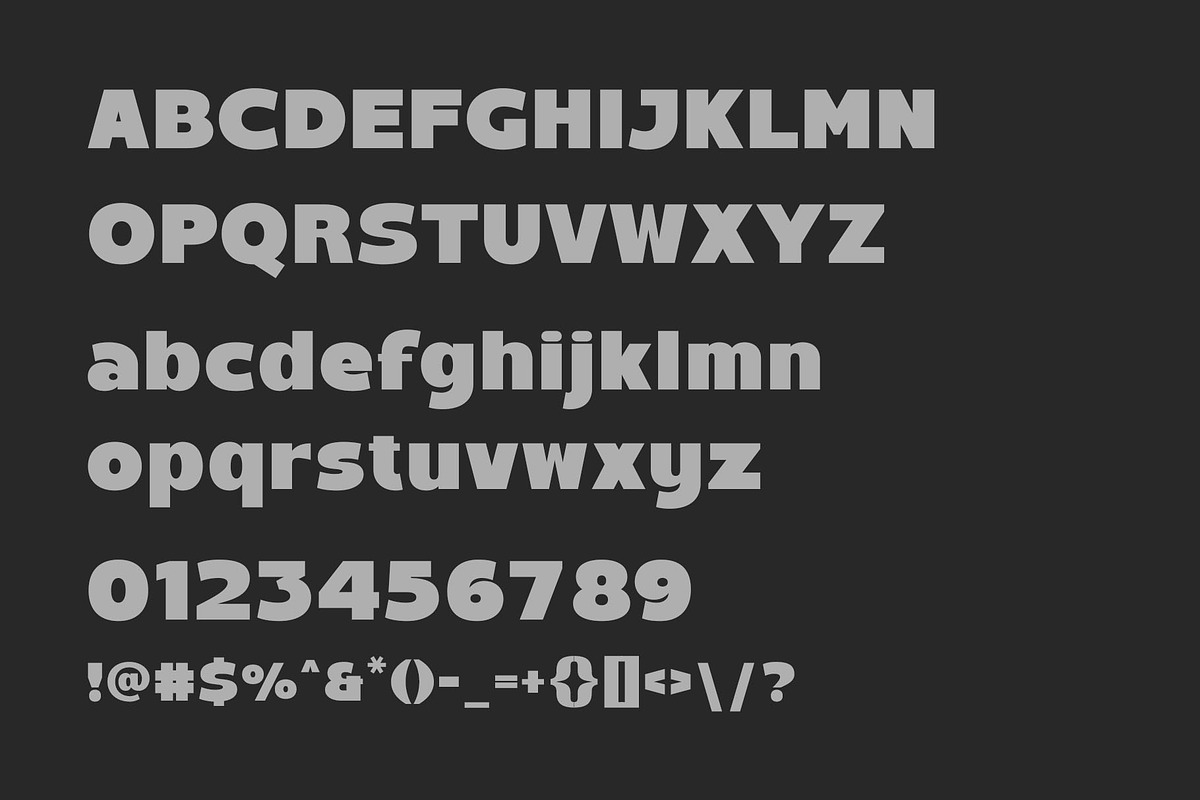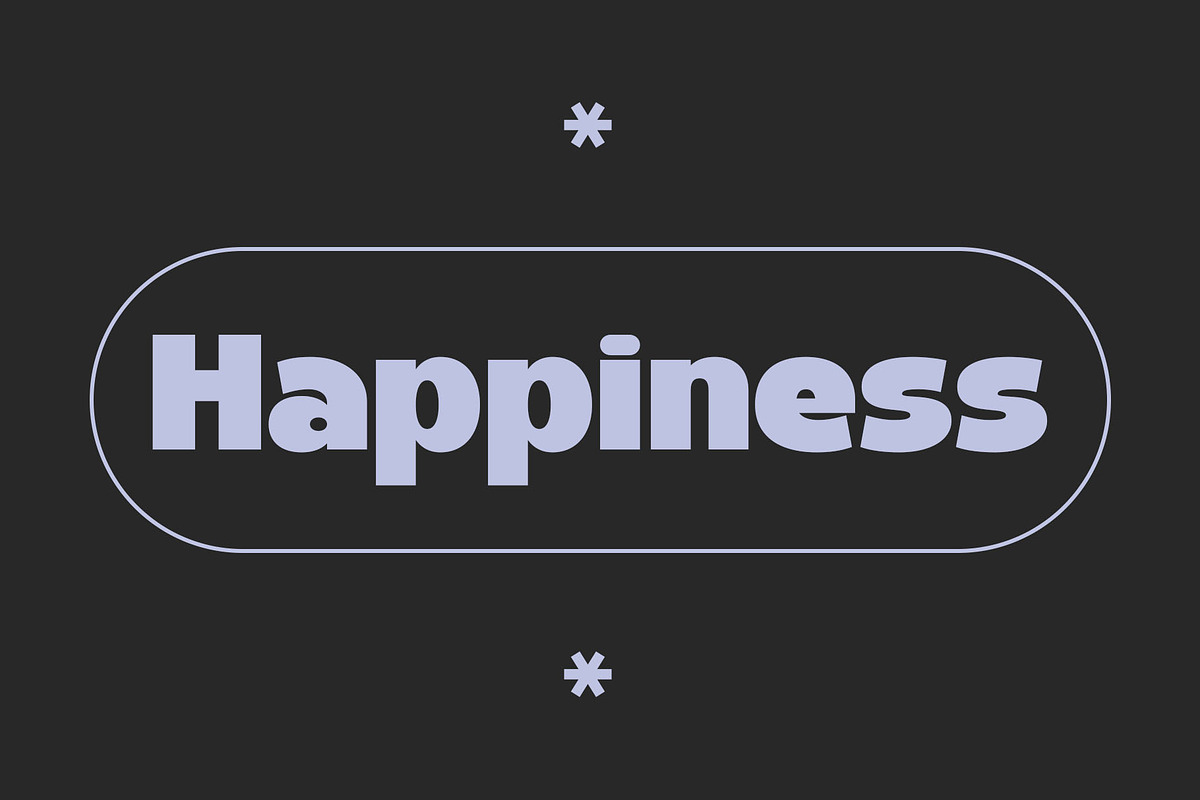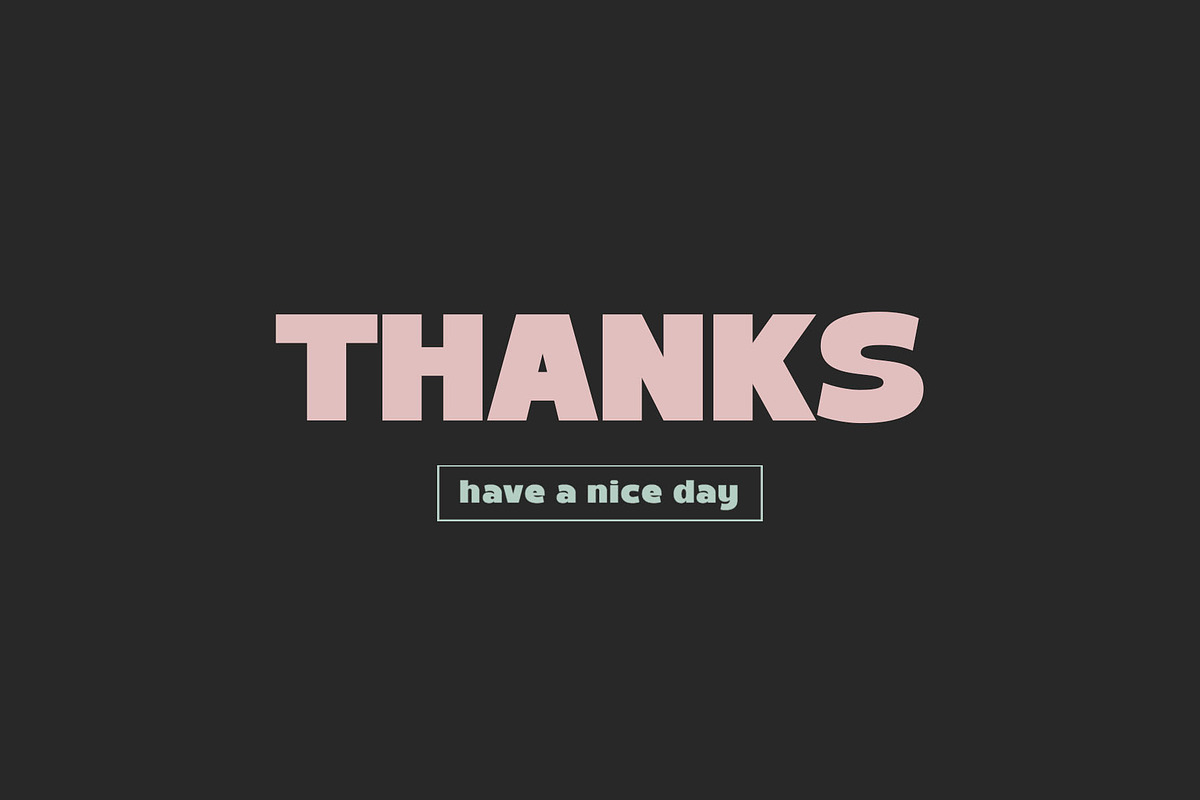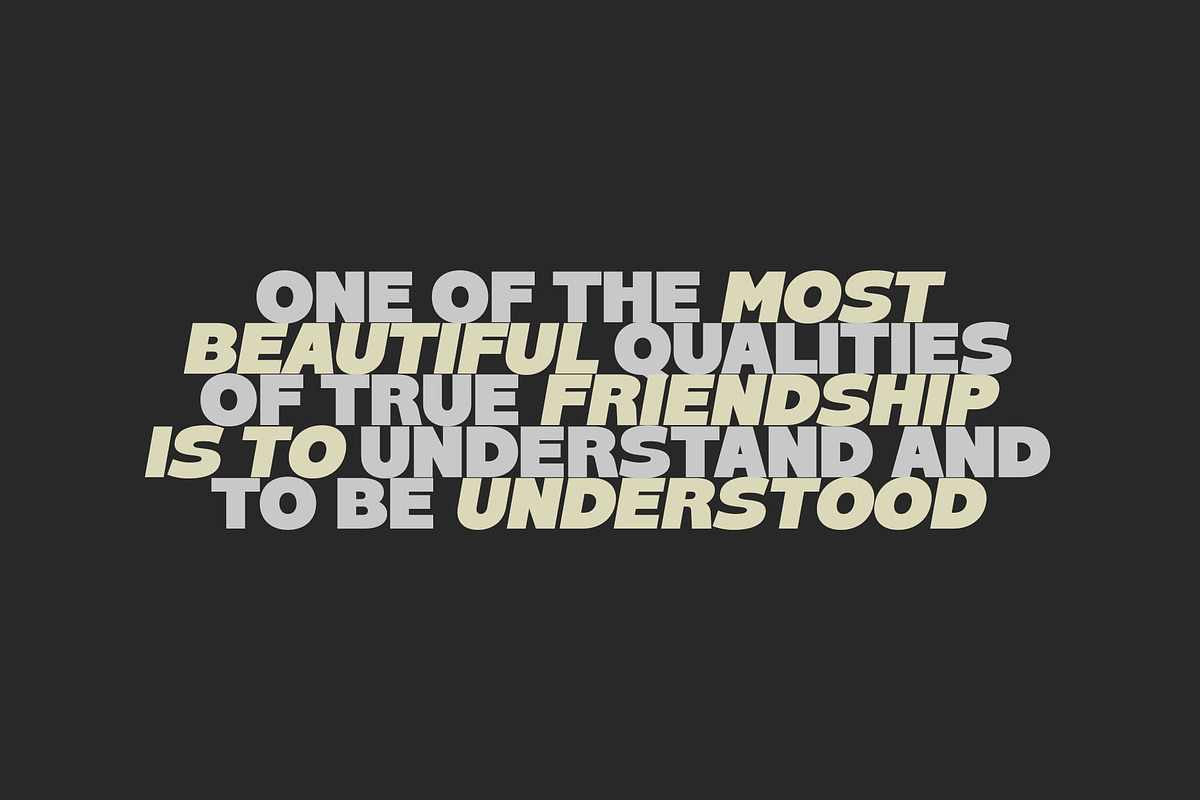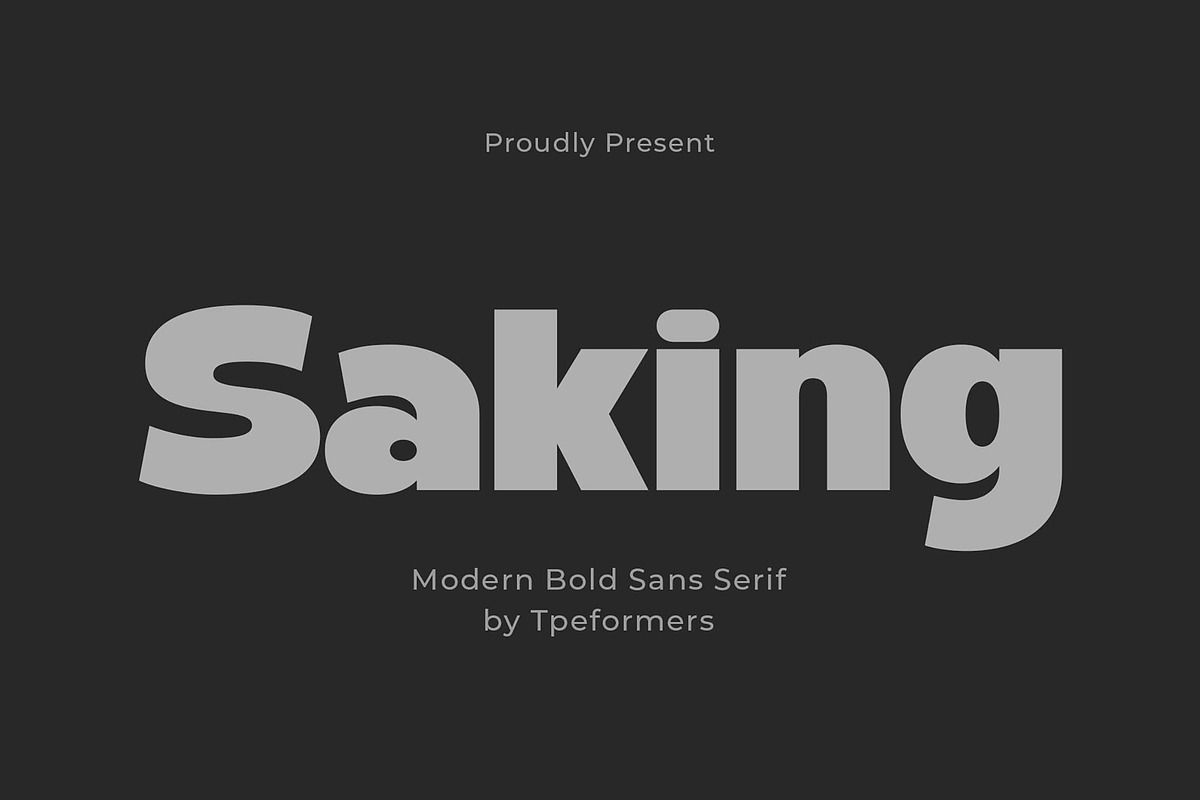
Saking - A Bold Sans Serif
Introducing Saking - A Bold Sans Serif. Saking is a modern and simple font, best used as a display for headings, logos, branding, magazines, product packaging and invitations.